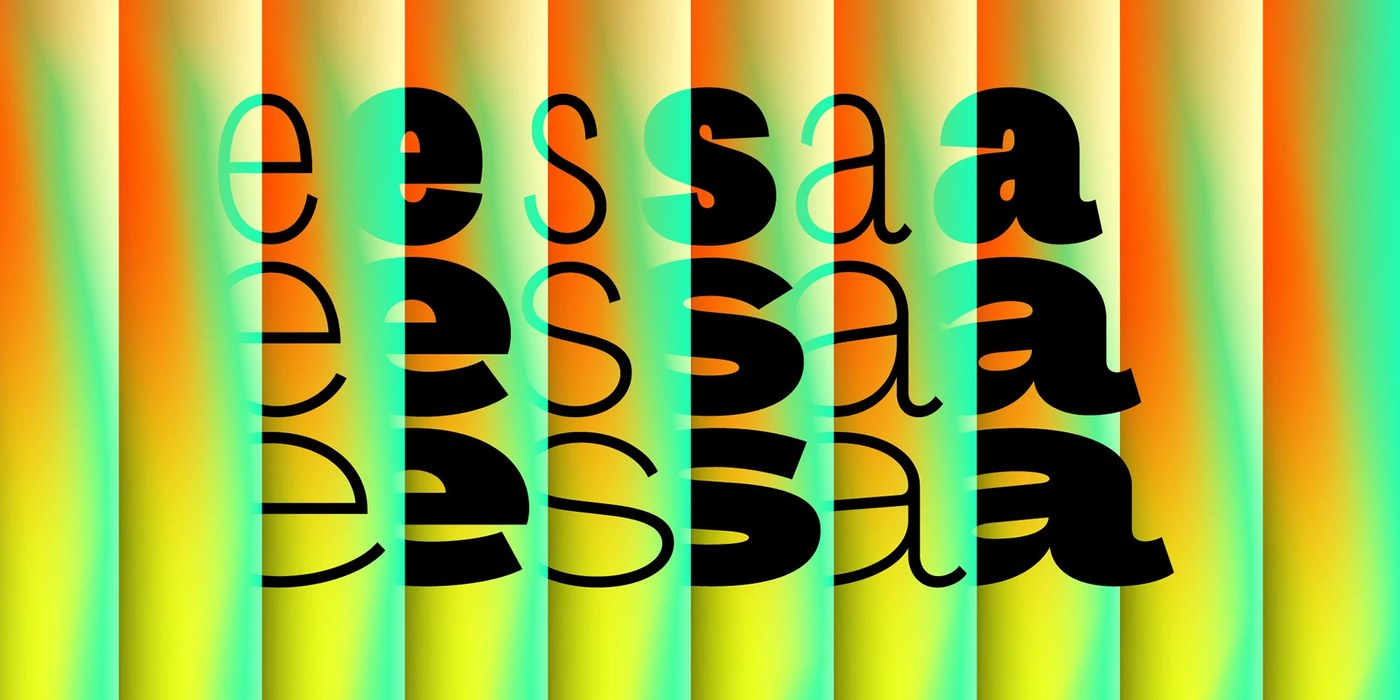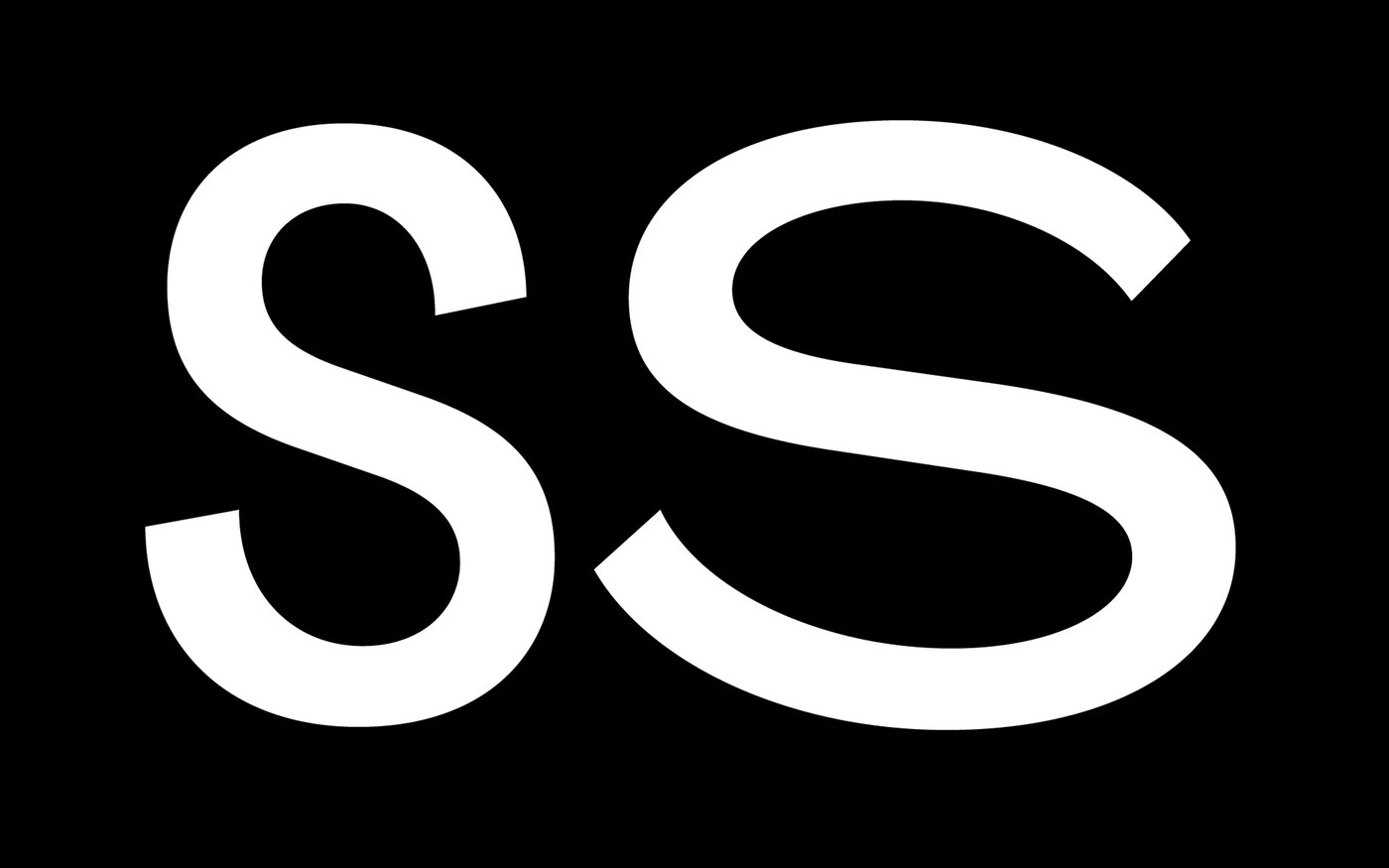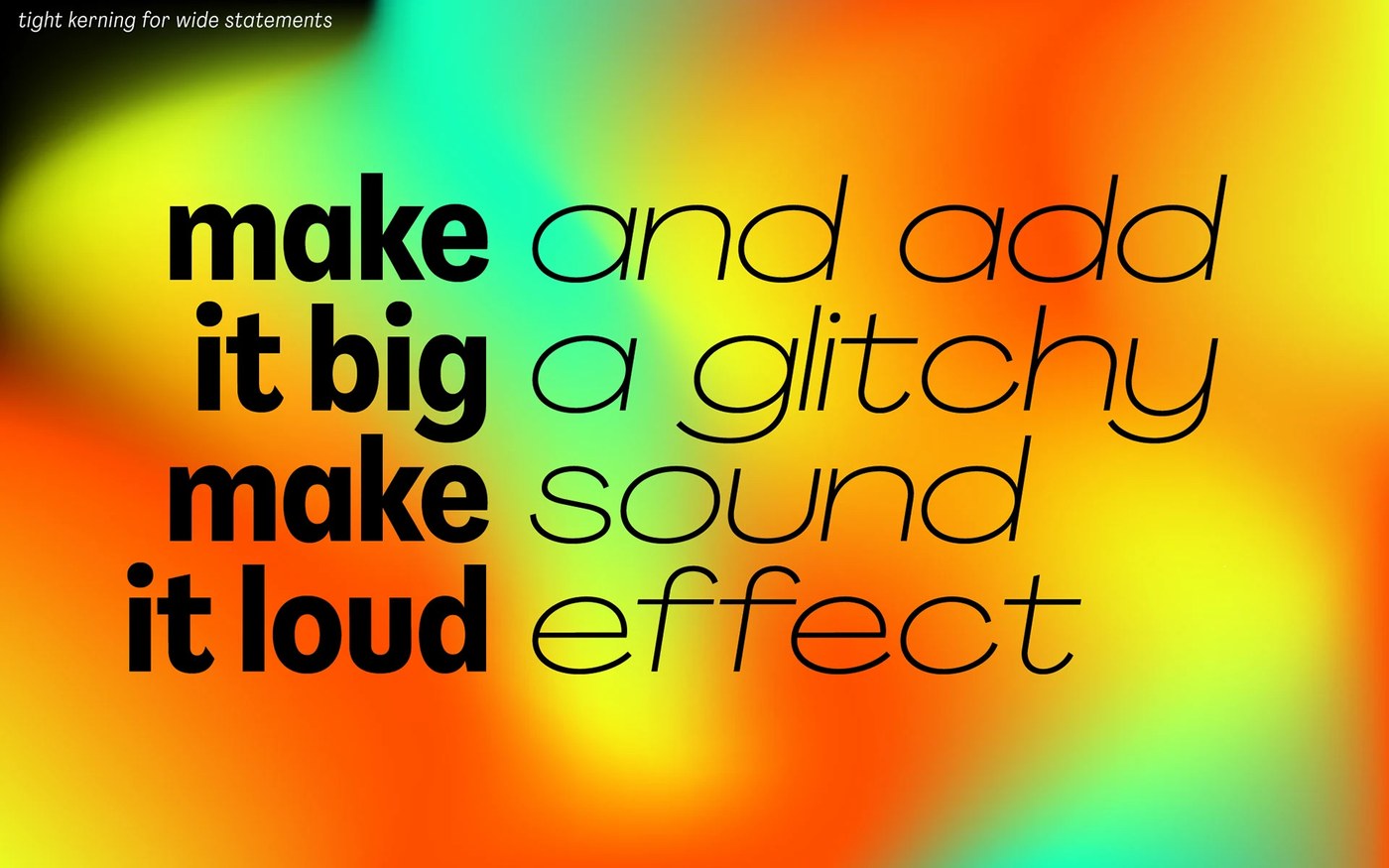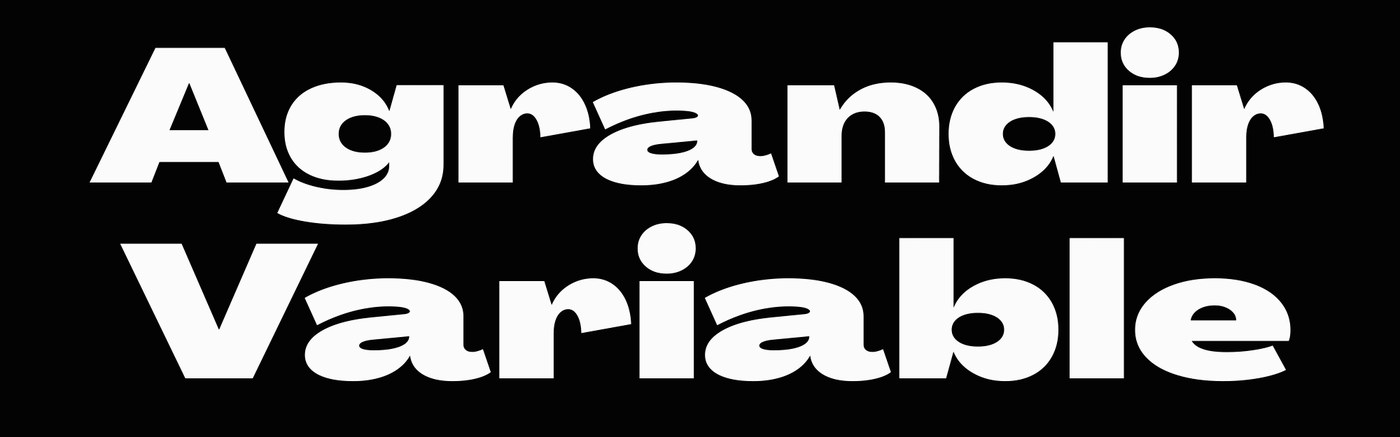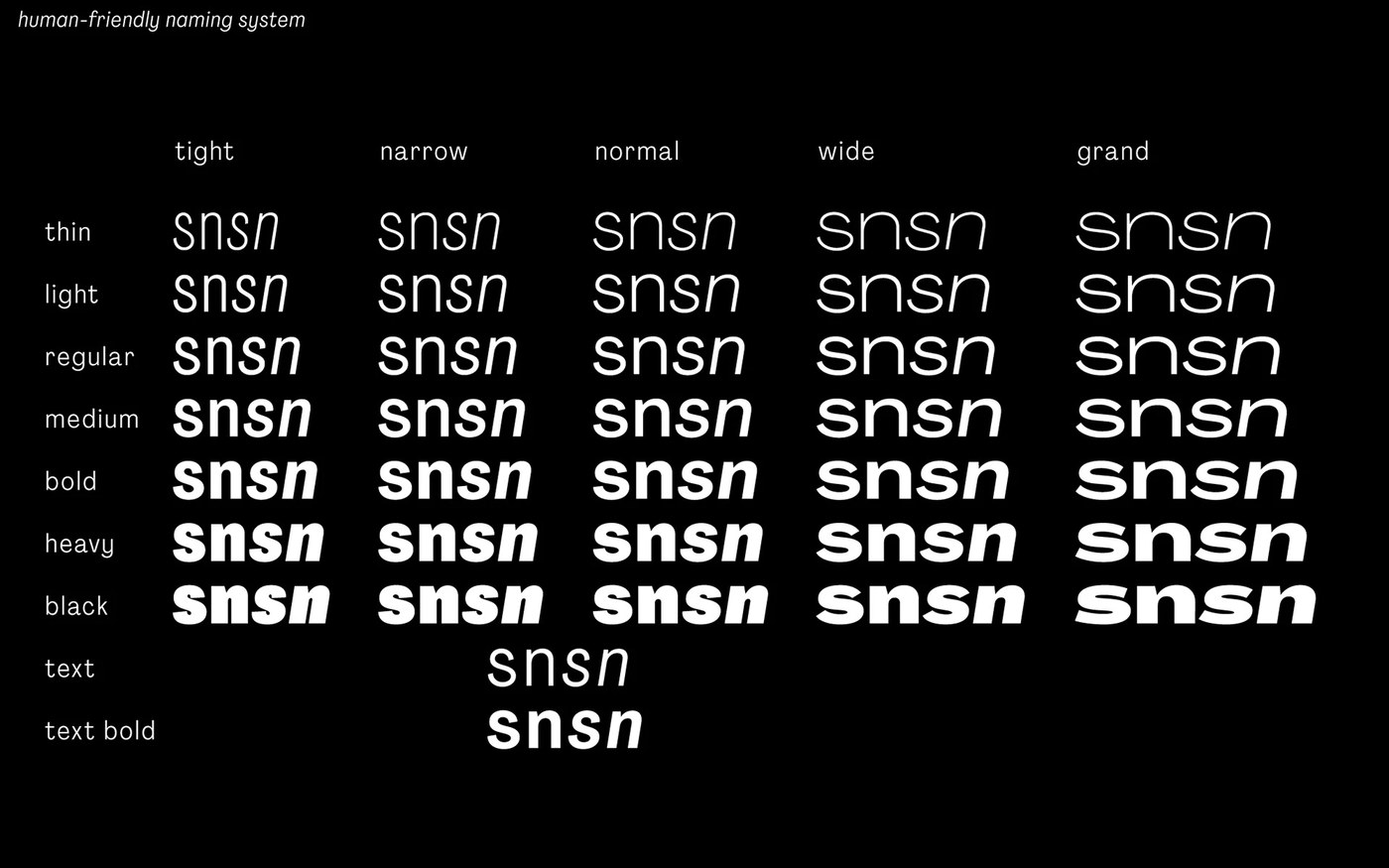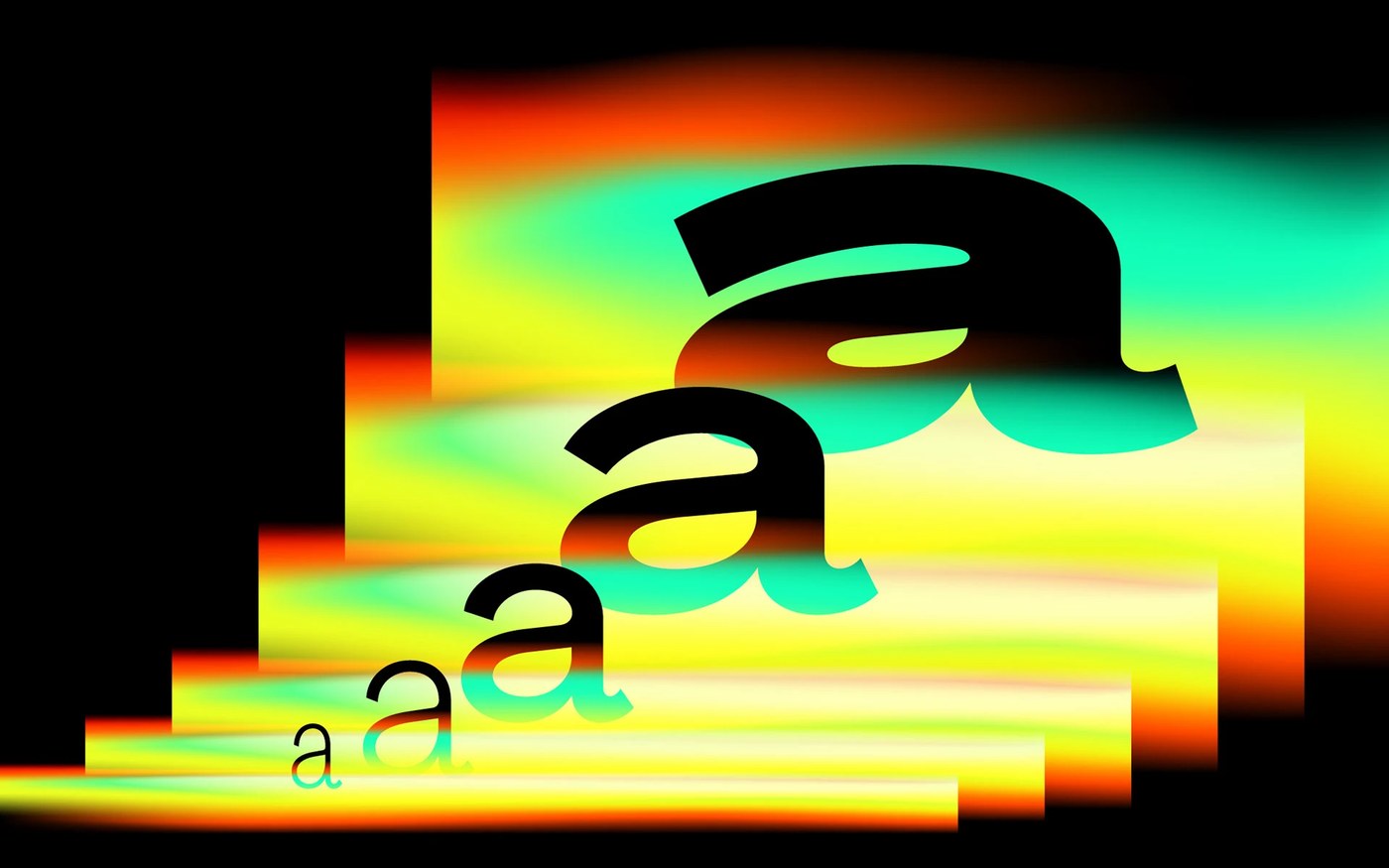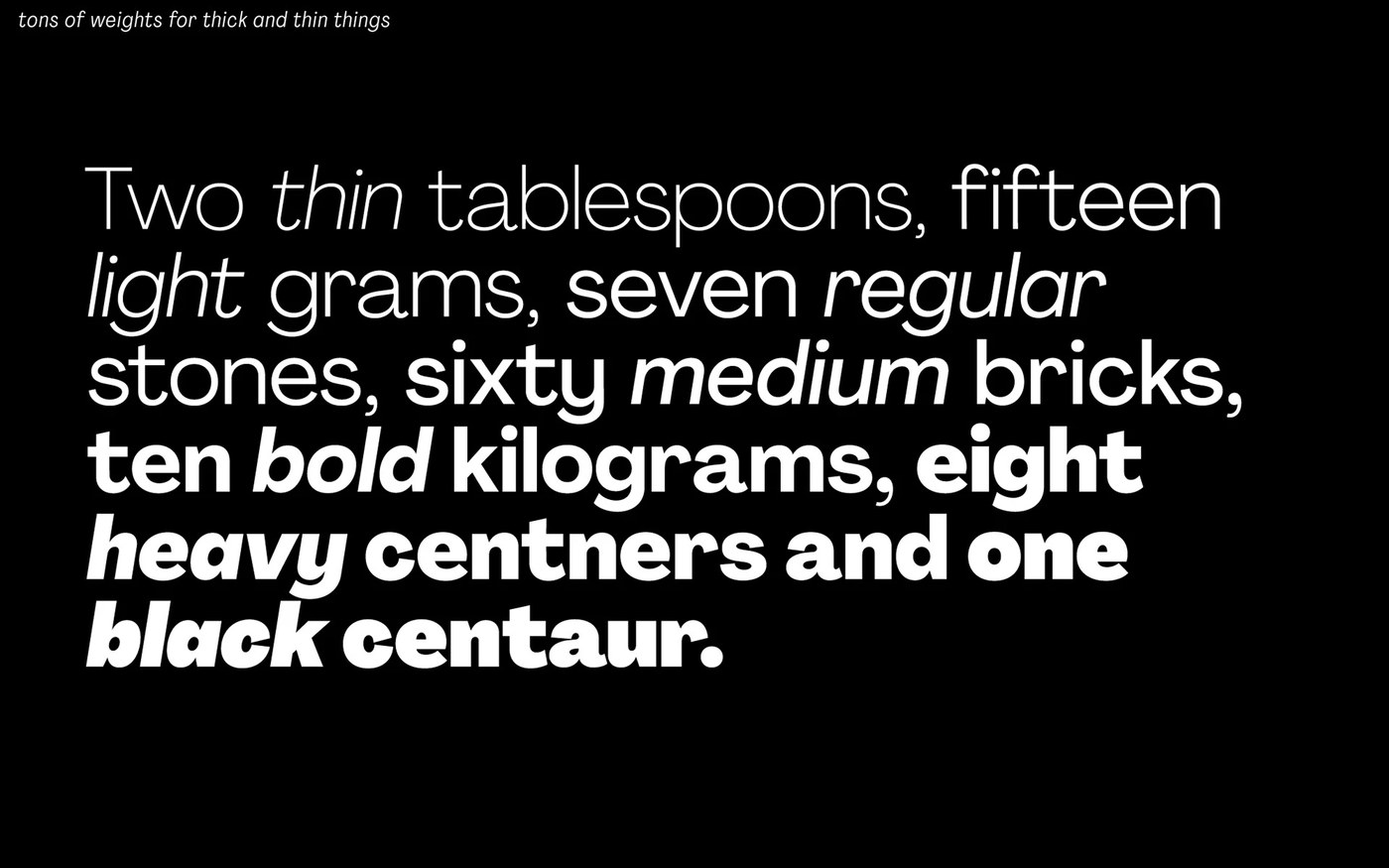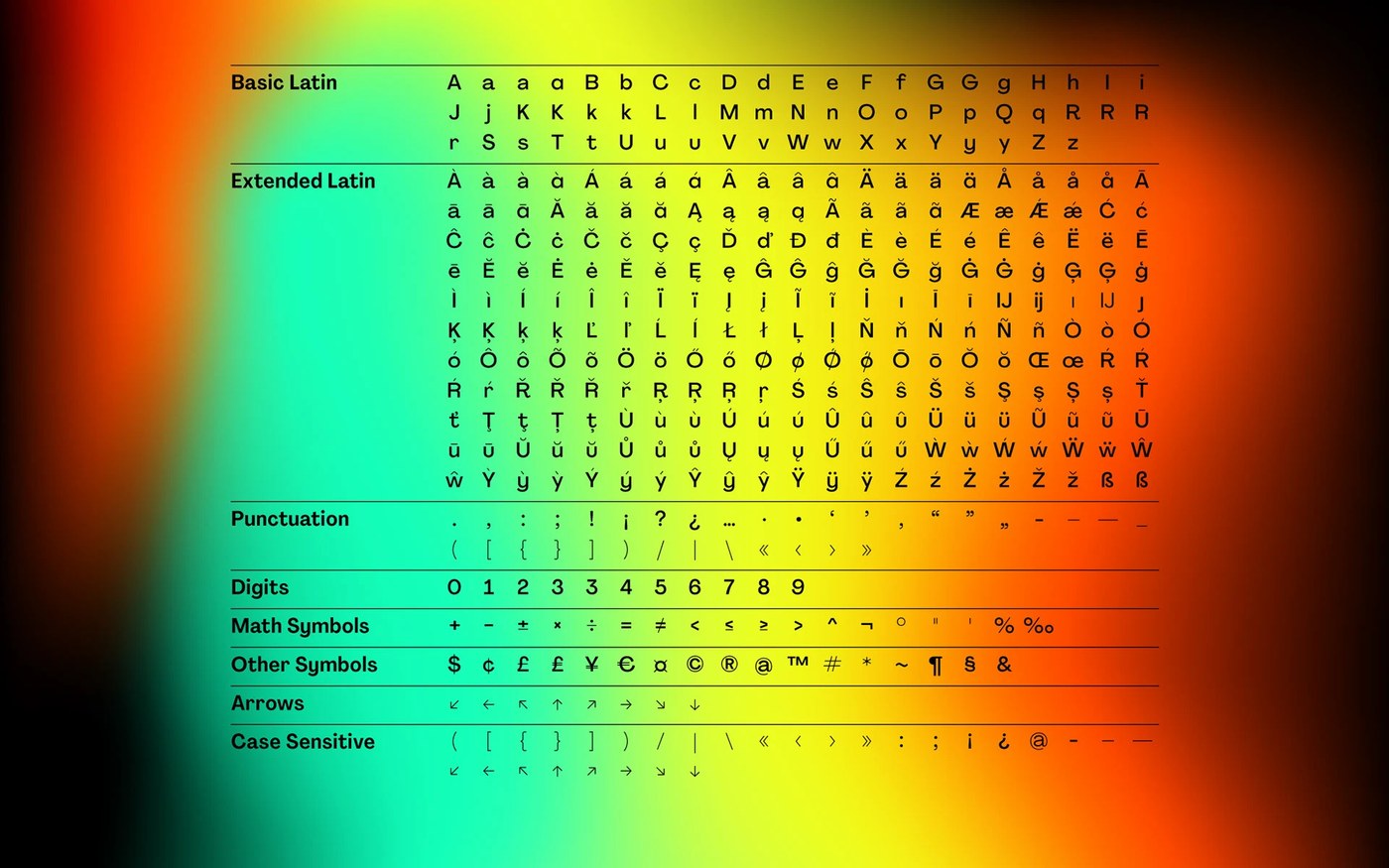
Agrandir Typeface Alex Slobzheninov: Bold Imperfect Forms
This bold, variable agrandir typeface alex slobzheninov celebrates unaligned letterforms. This quirky system offers flexible options for dynamic layouts.
This type family rejects standard modernist rules. The shapes look quirky. Every glyph has unaligned weight distributions. This design celebrates humanity over machine precision. Tight spacing makes headlines look tense. Large posters benefit from this tension. The details feel very organic. This design shows the agrandir typeface alex slobzheninov strength.
Agrandir Typeface Alex Slobzheninov
Variable axis options allow unique style control. The system features seventy-four fonts. Users can change widths and weights easily. Always-thin elements create contrast. This contrast guides the viewer's eye. These choices create dynamic style sets. Geometric presets spice up layouts. The agrandir typeface alex slobzheninov provides unique stylistic variety.